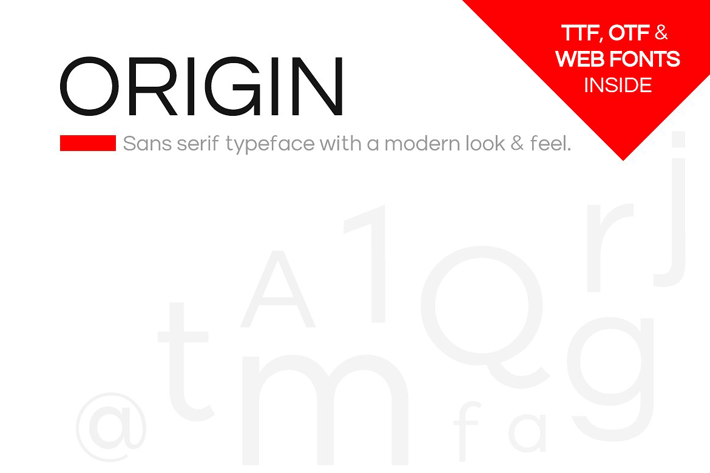
ORIGIN - Modern Sans-Serif Typeface + Web Fonts
ORIGIN is a modern Sans Serif typeface inspired by Swiss Design and other elegant typefaces that keep the minimalism at it's level best. ORIGIN will be best suited to create nicely looking headlines (add some letter spacing and it will amaze you) as well as page content (in the good 'Sans-Serif' sense).
ORIGIN features 4 weights non-italic (Light / Regular / Bold / Heavy). The pack includes OTF, TTF and Web Fonts (all EOT, SVG, TTF, WOFF included).